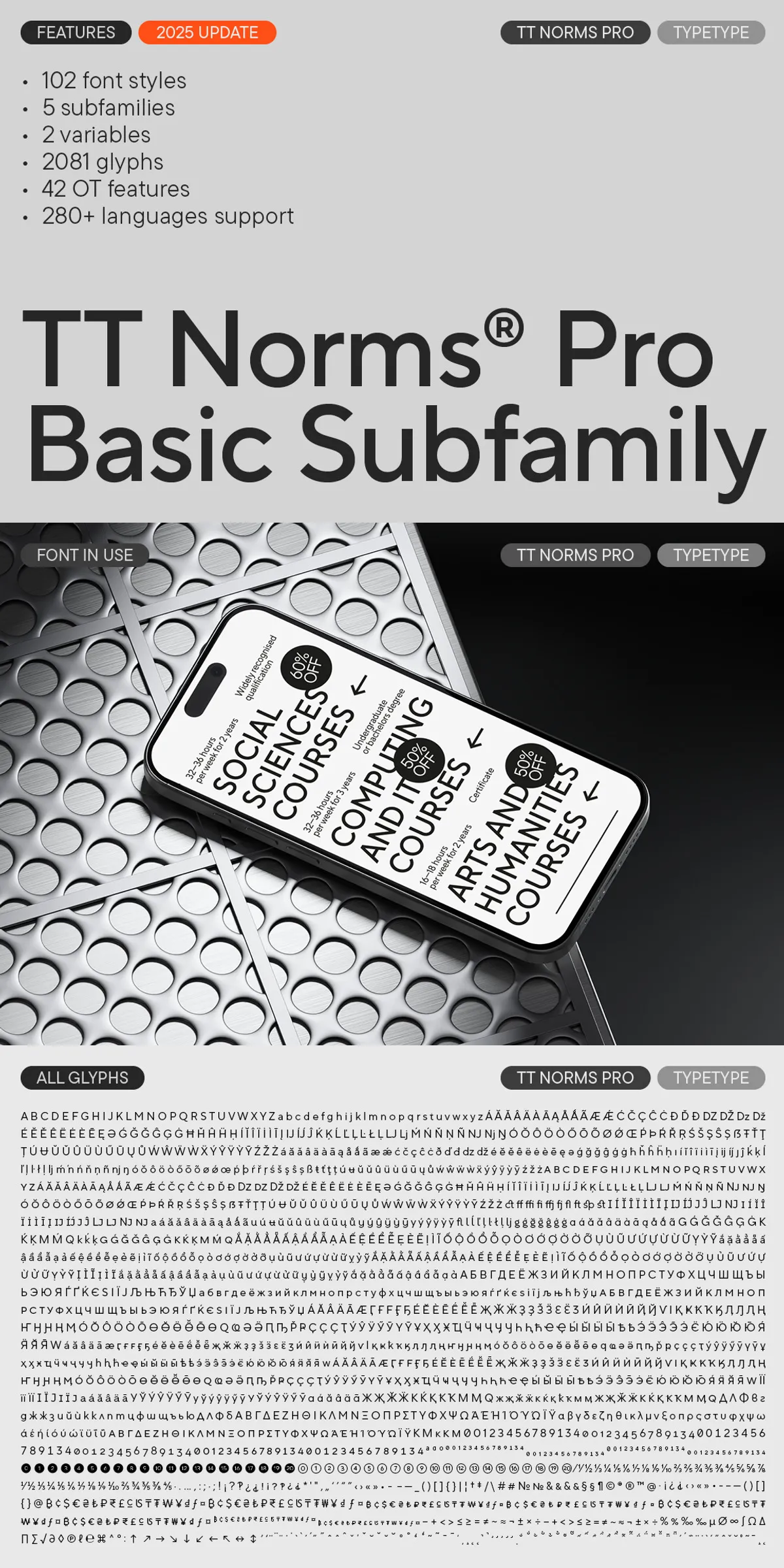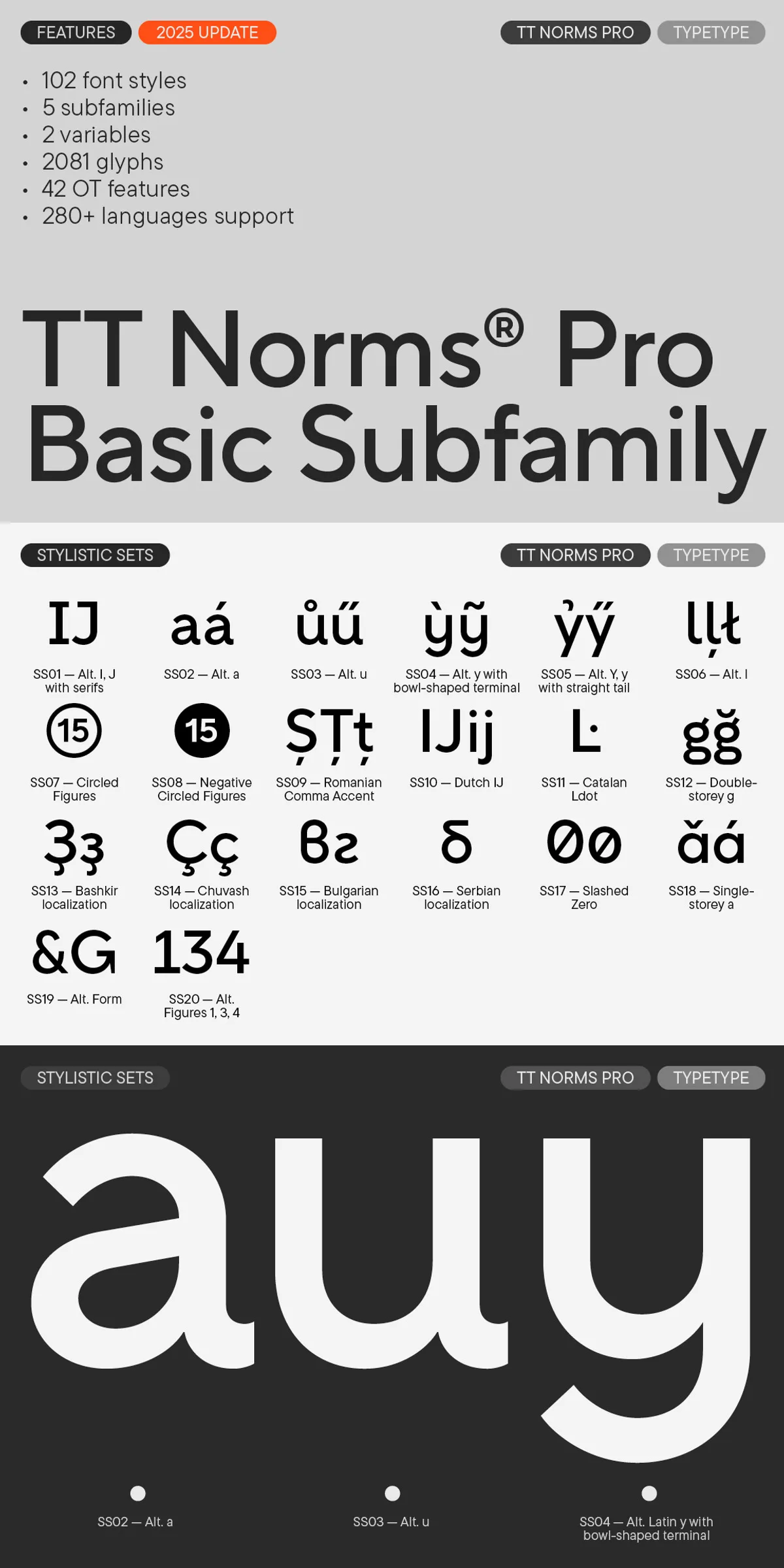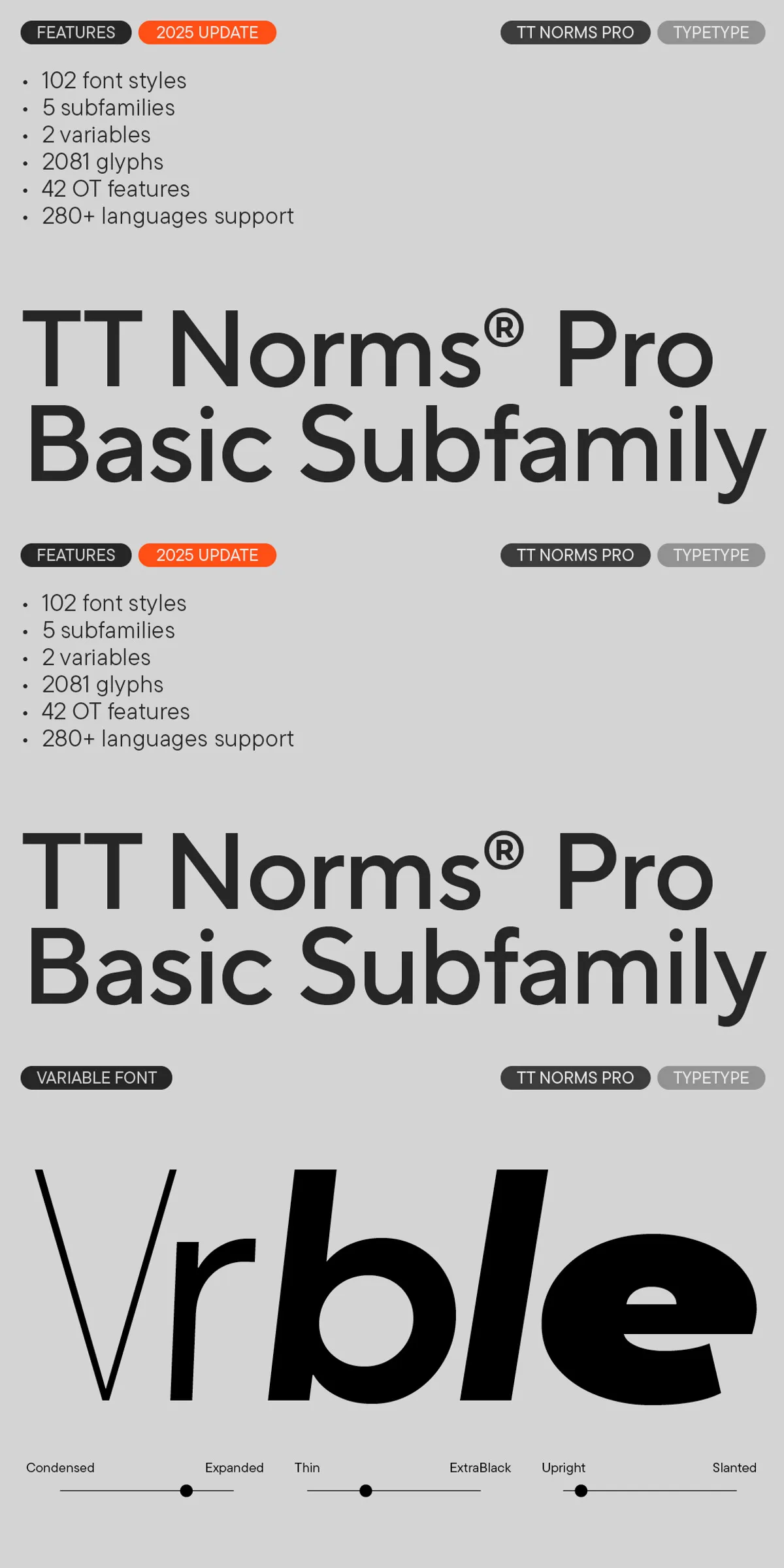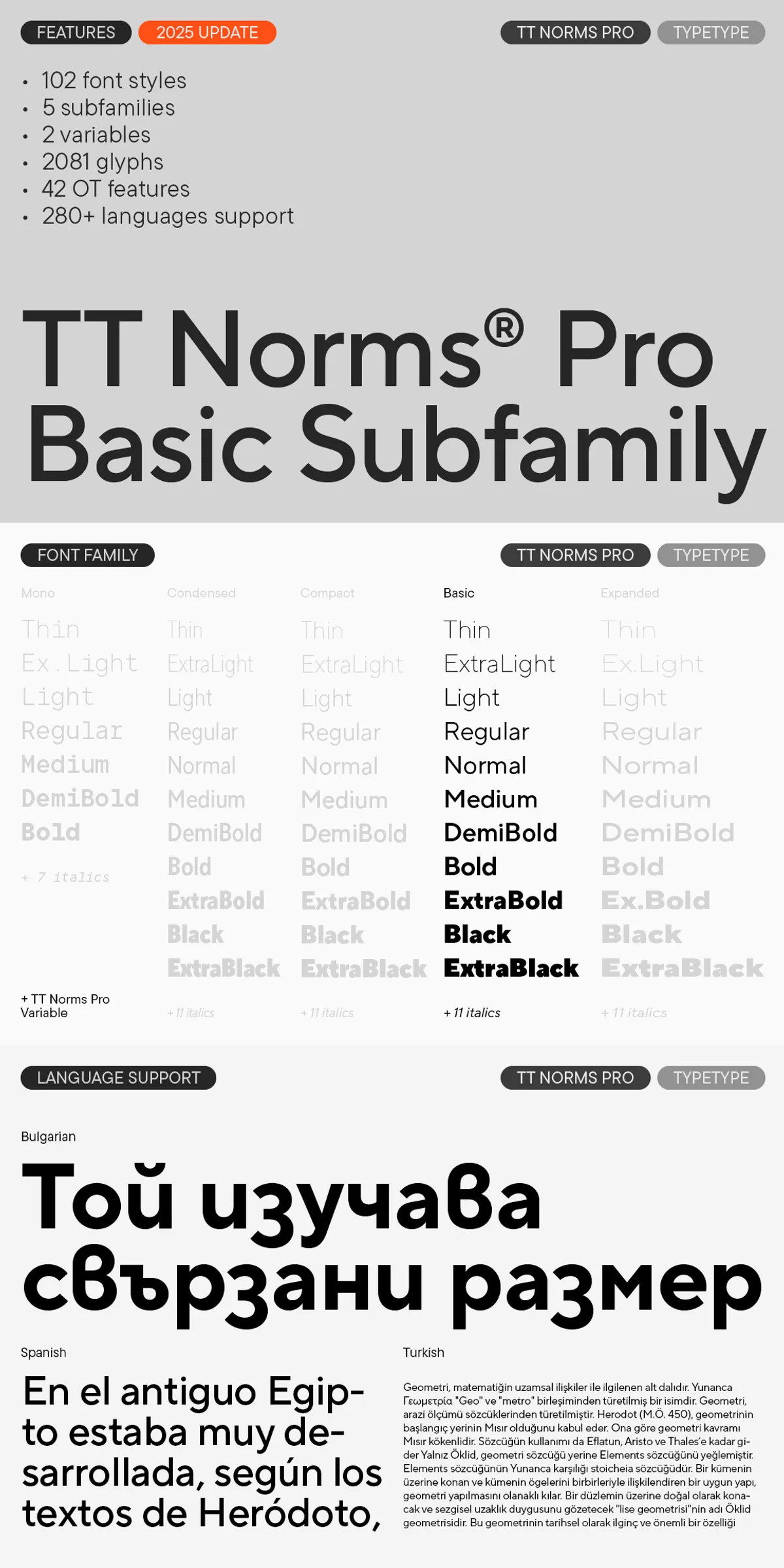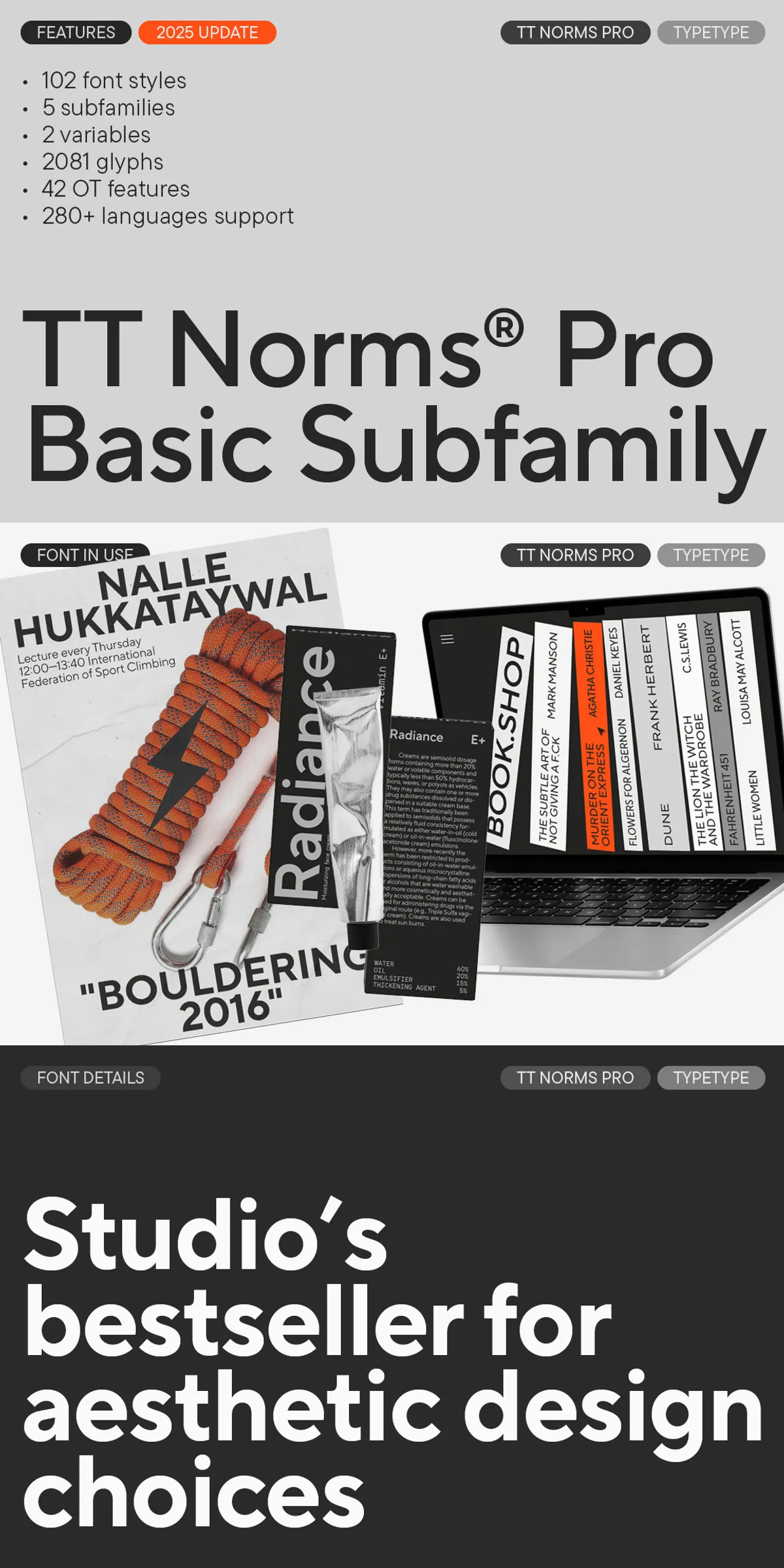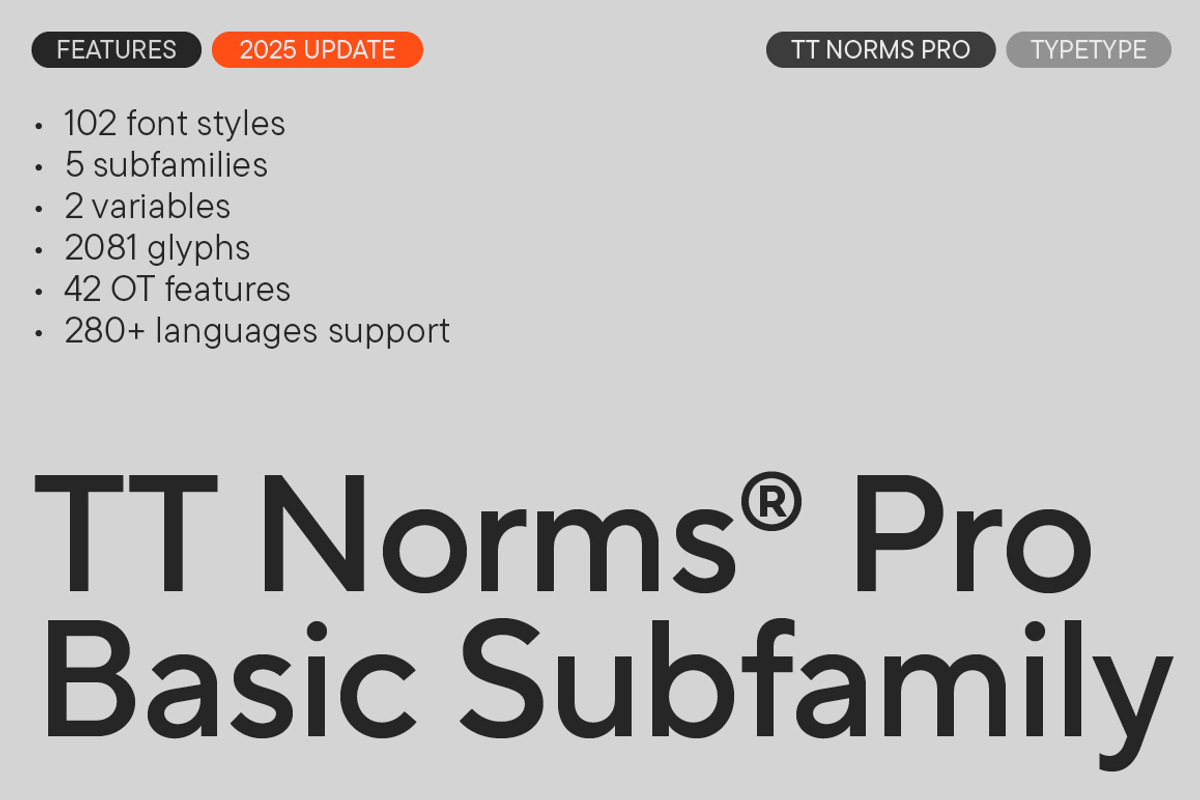
TT Norms Pro Basic
Step into the future of typography with TT Norms® Pro, Version 3.300 — a powerful upgrade to one of TypeType Studio’s most beloved and widely adopted typefaces. Engineered for both beauty and performance, this version delivers a deeper character set, refined functionality, and, most excitingly, brand-new stylistic sets that unlock unprecedented creative freedom. Whether you’re designing a global brand identity, a high-end magazine layout, or a sleek UI, TT Norms® Pro is built to stand at the center of your design toolkit — not as a supporting player, but as the defining voice of your visual language.
Boldly Redesigned: A New Era for a Timeless Font
TT Norms® Pro has long been acclaimed for its elegant geometry, clean lines, and seamless functionality — but Version 3.300 pushes it further. This update isn’t just a polish; it’s a transformation. Every stroke, every spacing, every character has been refined for maximum clarity, consistency, and visual harmony across all weights and sizes. The font now supports a significantly expanded character set, including enhanced multilingual coverage and rare punctuation, ensuring flawless output in any language or context.
The addition of new stylistic sets is where the real magic happens. Now, you can dynamically switch between multiple typographic variations — from subtle alternates to bold, modern reinterpretations — with just a few clicks. These sets let you instantly adapt the font’s tone: crisp and professional for corporate branding, warm and approachable for lifestyle content, or bold and contemporary for editorial headlines. This level of control was previously unavailable in a single font family — now it’s built-in.
Perfect for Every Design Challenge
TT Norms® Pro is not just a pretty font — it’s a functional powerhouse. It excels in a wide range of applications, thanks to its consistent rhythm, excellent legibility at small sizes, and robust weight hierarchy:
• Brand identity & logos — create strong, memorable visual systems with a font that speaks both clarity and sophistication.
• Web and app UI/UX design — ensure readability and performance across devices with a font optimized for screen rendering.
• Editorial and print design — deliver polished, high-impact layouts for magazines, books, and brochures with seamless integration of text and imagery.
• Corporate communications — build trustworthy, professional materials for reports, newsletters, and presentations.
Its geometric foundation ensures clean alignment and visual balance, while subtle humanist touches prevent it from feeling cold or sterile. The result? Typography that is both modern and human — efficient, elegant, and emotionally resonant.
Why Designers Choose TT Norms® Pro, Version 3.300
As the bestseller from TypeType Studio, TT Norms® Pro isn’t just popular — it’s proven. Thousands of designers across industries trust it to deliver consistent, professional results. Now, with Version 3.300, that trust is stronger than ever. The font family includes multiple weights, from thin to black, with true italics, ensuring you can maintain visual hierarchy at any scale.
It’s been rigorously tested in real-world environments — from print production to digital rendering — and it holds up under pressure. Whether you’re using it in Adobe InDesign, Figma, Webflow, or Microsoft Word, the font performs flawlessly with full OpenType feature support, including ligatures, small caps, and contextual alternates.